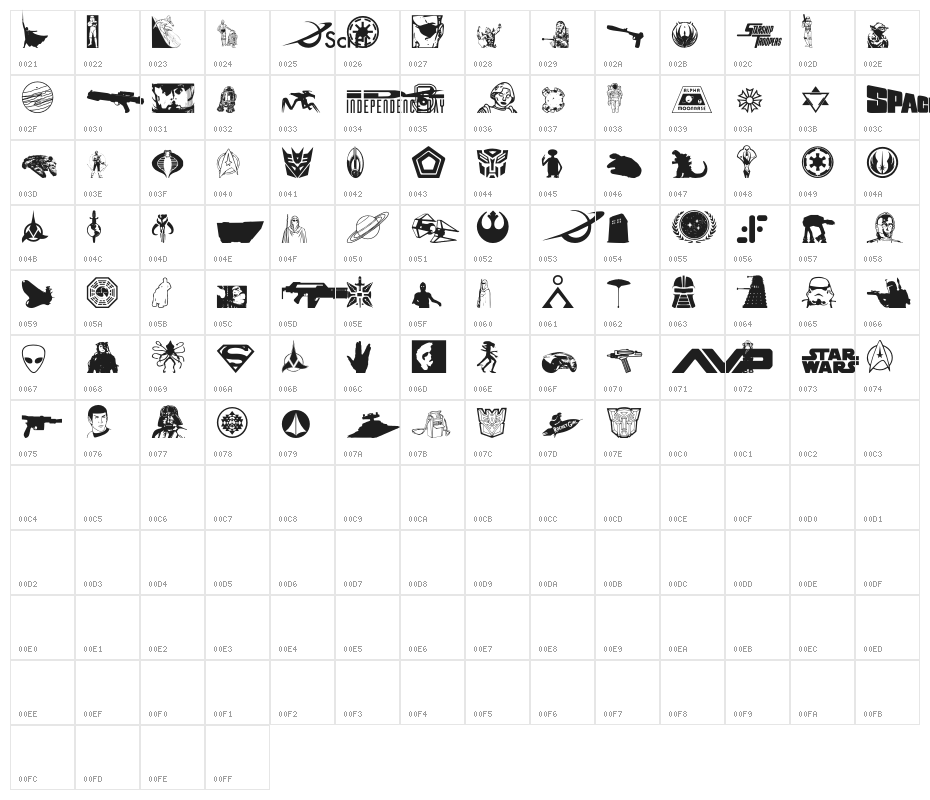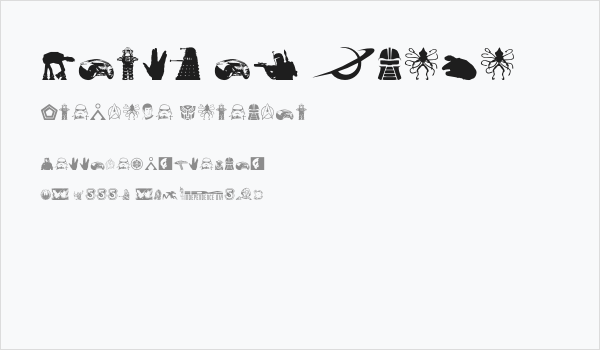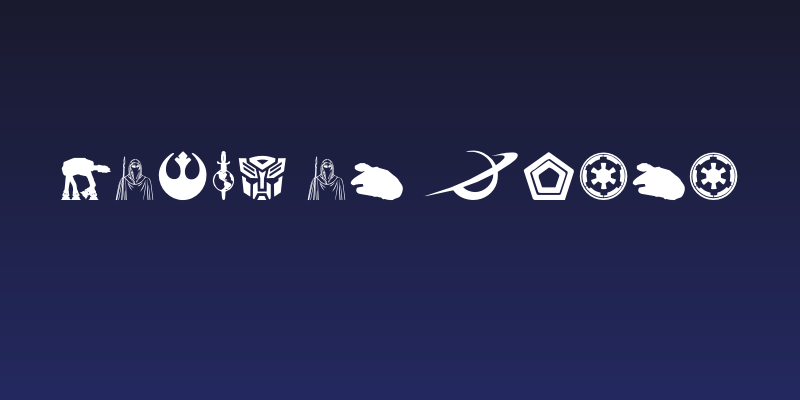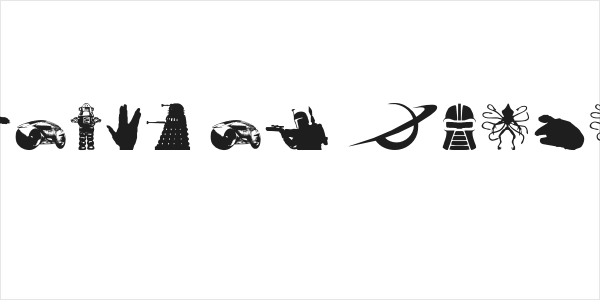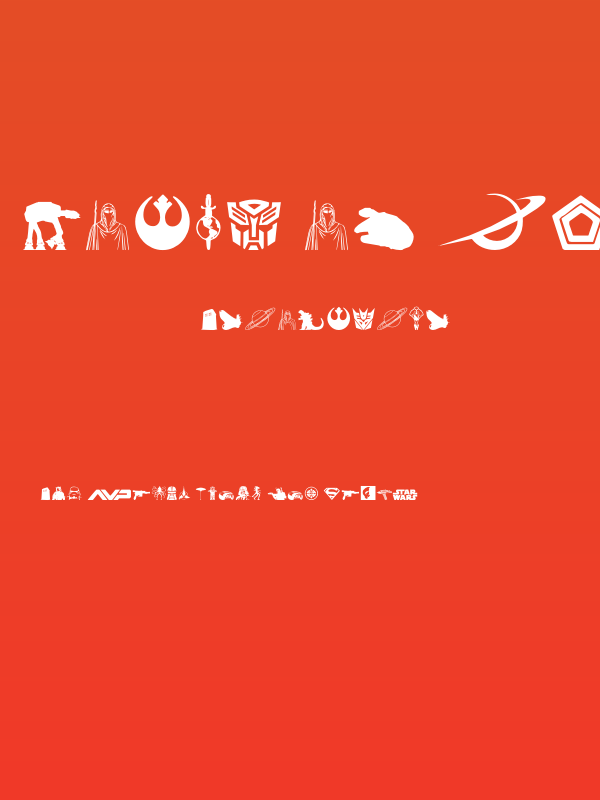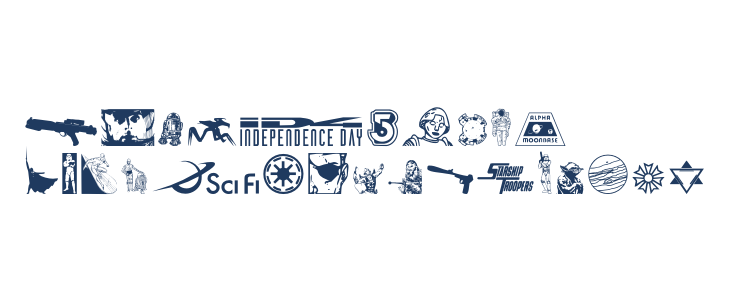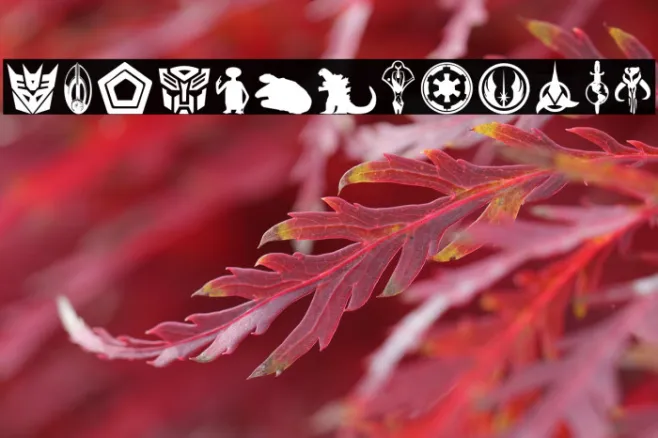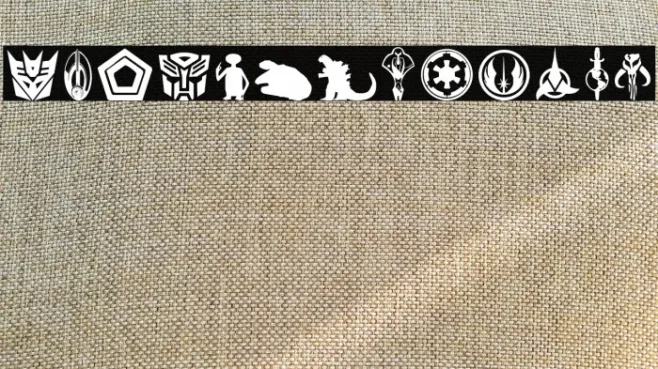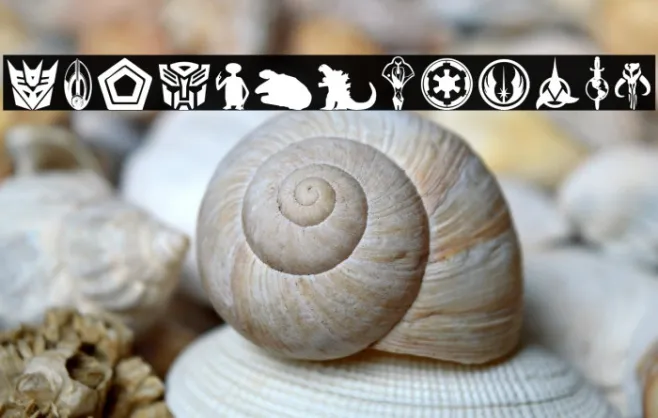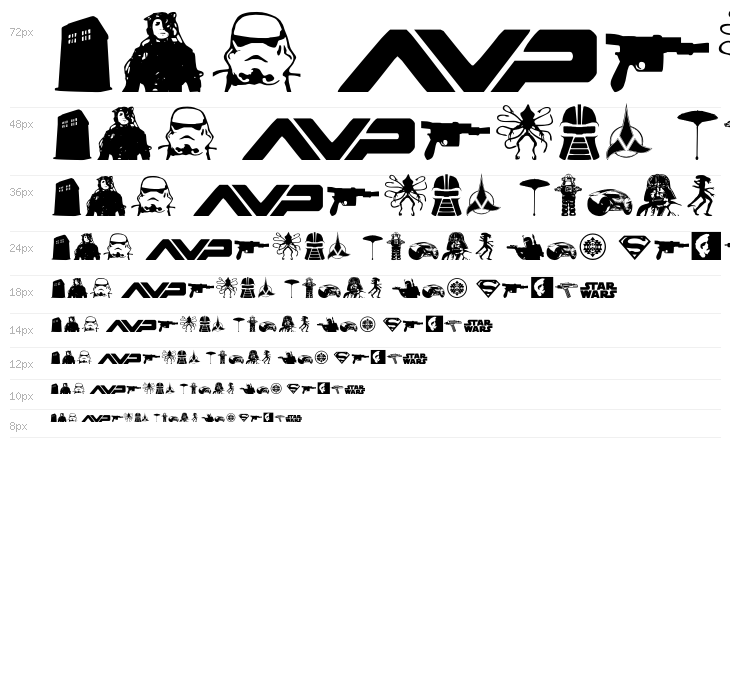
World of SciFi Font
World of SciFi Description
A decorative display font composed entirely of iconic science fiction symbols, logos, and character silhouettes from various franchises, rendered in bold, high-contrast black glyphs with no traditional letterforms.
| Overall Style | Decorative, Pop Culture, Thematic |
| Use Case | Logos, Headlines, Themed Graphics, Decorative Elements |
| Proposed Projects | Posters, fan art, event flyers, themed party invitations, digital stickers, sci-fi convention materials. |